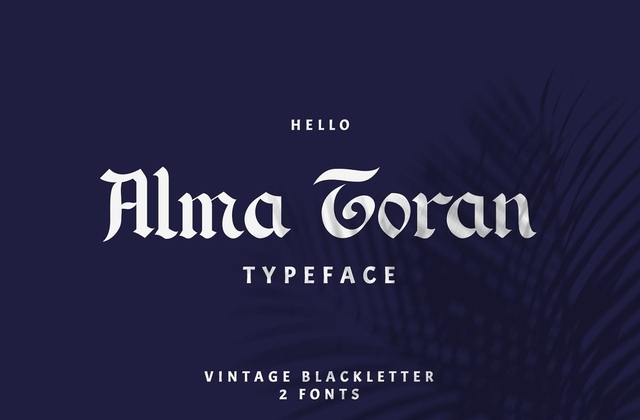
Alma Toran Font
This sophisticated display typeface is perfect for luxury hospitality branding, upscale restaurant identities, premium wine labels, high-end resort communications, exclusive travel experiences, boutique hotel signage, gourmet food packaging, and refined cultural event materials.
What makes this font exciting is its masterful combination of classical elegance and contemporary refinement that creates an immediate sense of exclusivity and sophisticated taste. The carefully crafted letterforms feature distinctive character details and refined proportions that evoke European luxury traditions, while the modern interpretation ensures relevance for today's discerning audiences seeking authentic premium experiences.
The Alma Toran Font family includes light, regular, and bold weights, along with decorative alternates and luxury ornaments that enhance the typeface's prestigious appeal for comprehensive high-end hospitality and lifestyle applications.
Alma Toran Font Free Download provides designers with an outstanding solution for creating distinguished brand identities that communicate heritage, quality, and exclusivity. This meticulously designed typeface brings the sophistication of old-world craftsmanship to modern luxury markets, making it ideal for Michelin-starred restaurants, luxury travel companies, premium wine estates, and exclusive membership clubs seeking to establish aristocratic brand presence.
The distinguished character of Alma Toran Font shines through its harmonious balance of tradition and innovation that reflects centuries of typographic refinement. Each letter displays meticulous attention to classical proportions and elegant details that create visual authority and cultural sophistication. This exceptional heritage makes it particularly suitable for luxury cruise lines, five-star hotels, premium culinary brands, and exclusive cultural institutions requiring typography that communicates timeless elegance and uncompromising standards.
Professional designers will find this font invaluable for establishing premium brand identities that command respect and admiration from affluent audiences. From luxury resort brochures to fine dining menus, from premium spirit labels to exclusive event invitations, Alma Toran Font maintains its aristocratic character while adapting to diverse luxury applications. The font's comprehensive character set includes old-style numerals, ligatures, and decorative elements that enhance typographic refinement, ensuring complete design flexibility for sophisticated communications that celebrate cultural heritage, artistic excellence, and the finest traditions of luxury hospitality across all premium market segments.